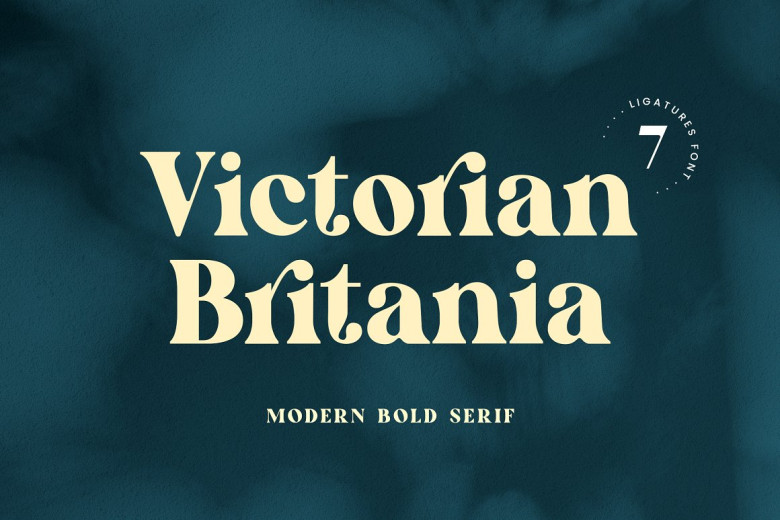
Victorian Britania Font
A new product, Victorian Britania is a serif font. It feels beautiful, classy, elegant and modern in bold weight. This font is ideally suited for use in all sorts of projects such as signature, stationery, logo, wedding invitations, typography quotes on the internet as headlines or for blogs, magazines and book covers where headings are often large-in relation to body text, website headers clothing branding packaging design (including perfume bottles), and so forth! In addition fashion-related editorial design shows both male and female characteristics.
Victorian Britania Serif Font